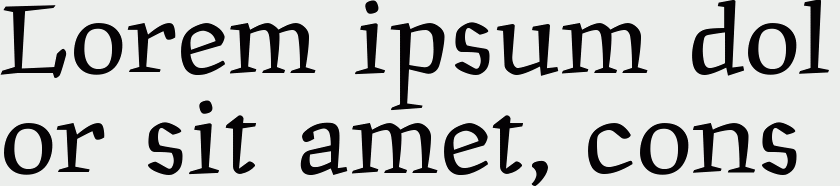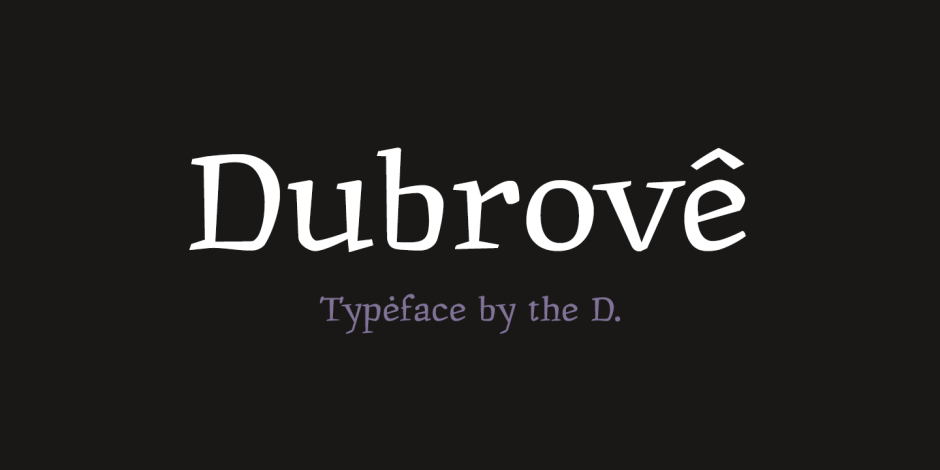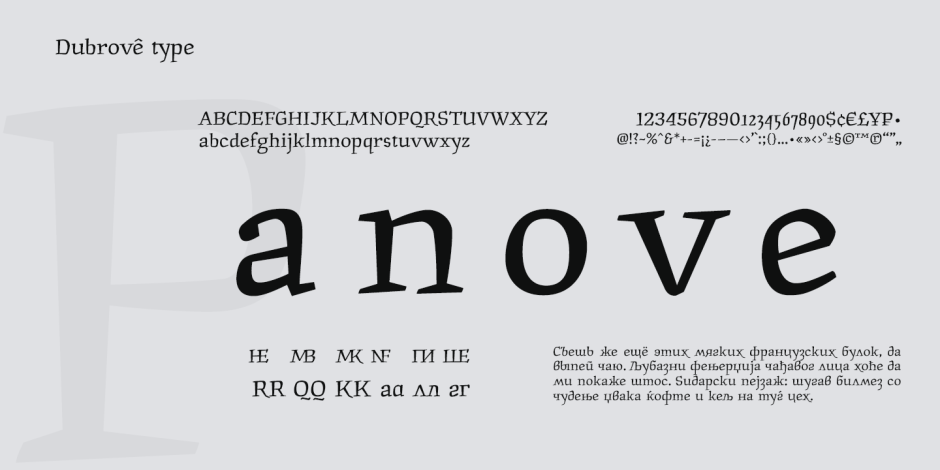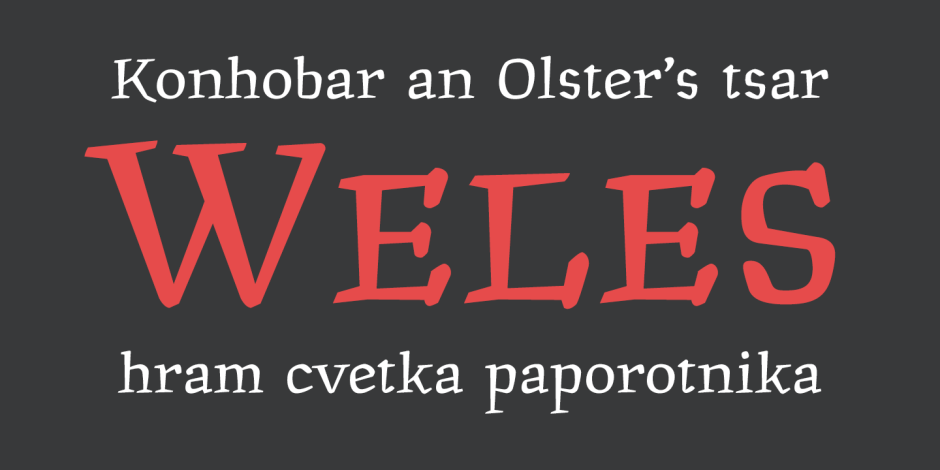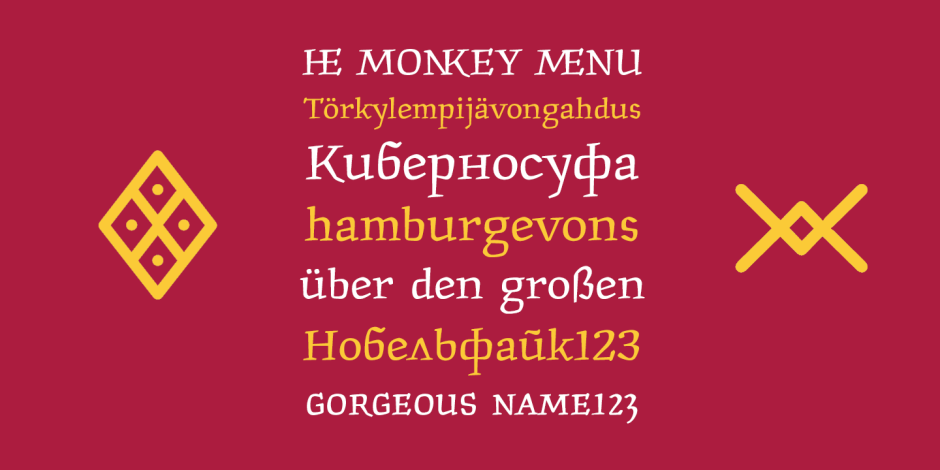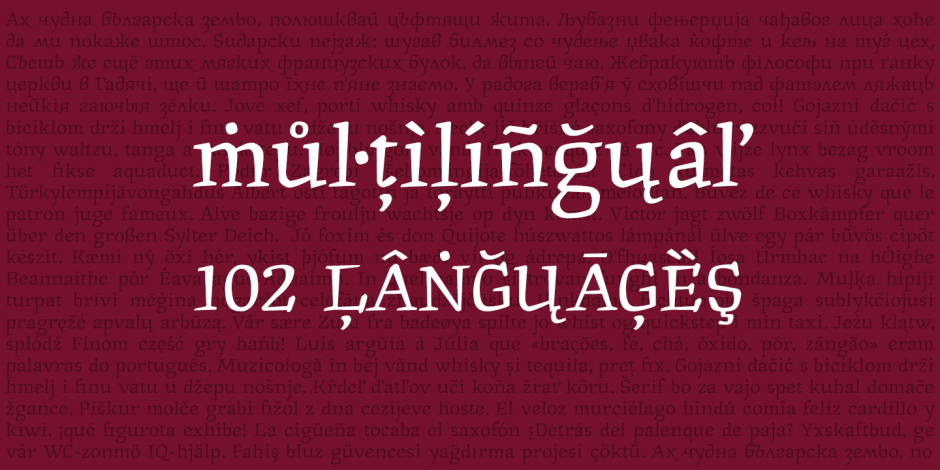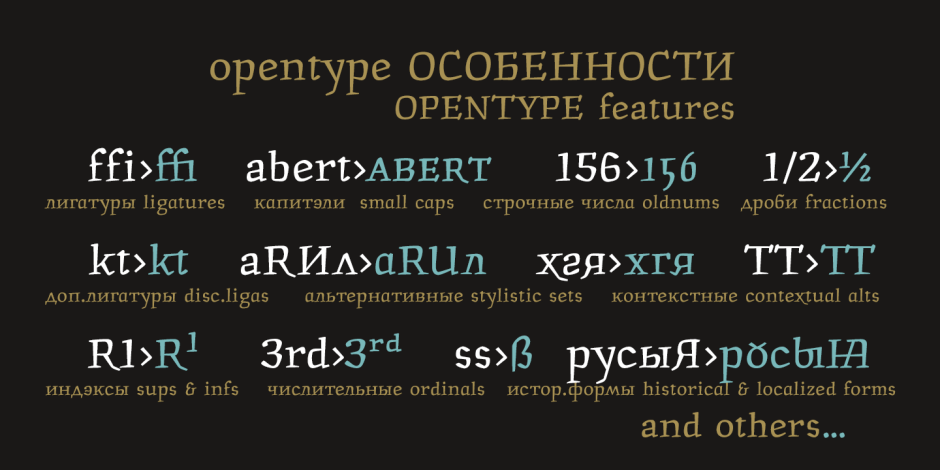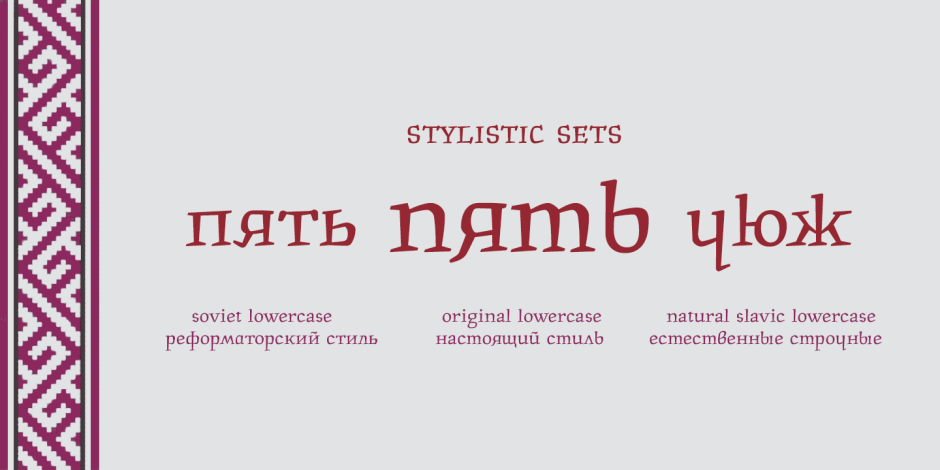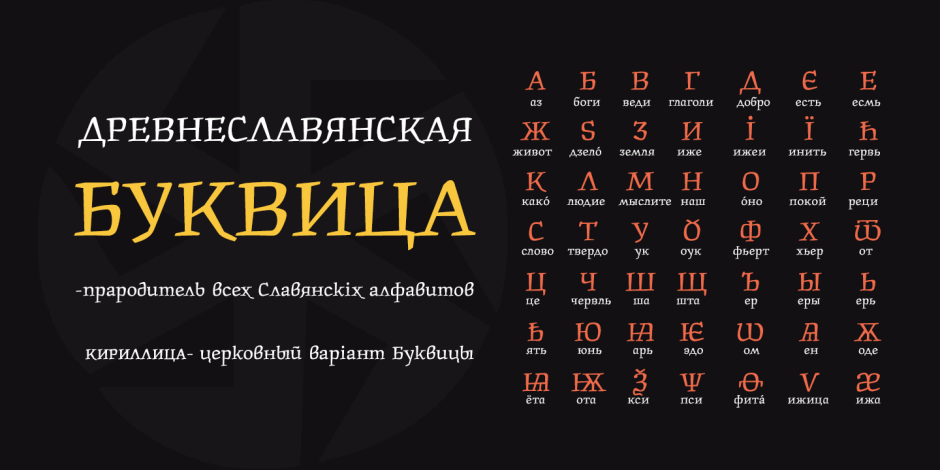
Dubrove
Dubrove is a wedge serif typeface inspired by Moravian (Czech) type design of 1930-50s. The character font is expressive and a free, daring and graceful, delicious and attractive.
Here are more than 1100 glyphs, all 102 European languages, all Ancient Slavic Alphabet (49 characters), Latin and Slavic small capitals and OpenType features with many solutions.
Dubrove has several stylistic sets, historical forms, localized forms of several languages, interest contextual ligatures and many other delicacies.
В дополнение ко всему в шрифте Дуброве осуществлены несколько стилистических наборов строчных букв Славянского письма. Помимо основного стиля шрифта (по сути он близок к естественному характеру строчных), есть традиционный [ss02] набор (позднереформаторский, советский, когда большинство строчных копируют собой заглавные), а также строчные естественного характера [ss03], стиль которых, в частности, часто используется в Болгарском письме.